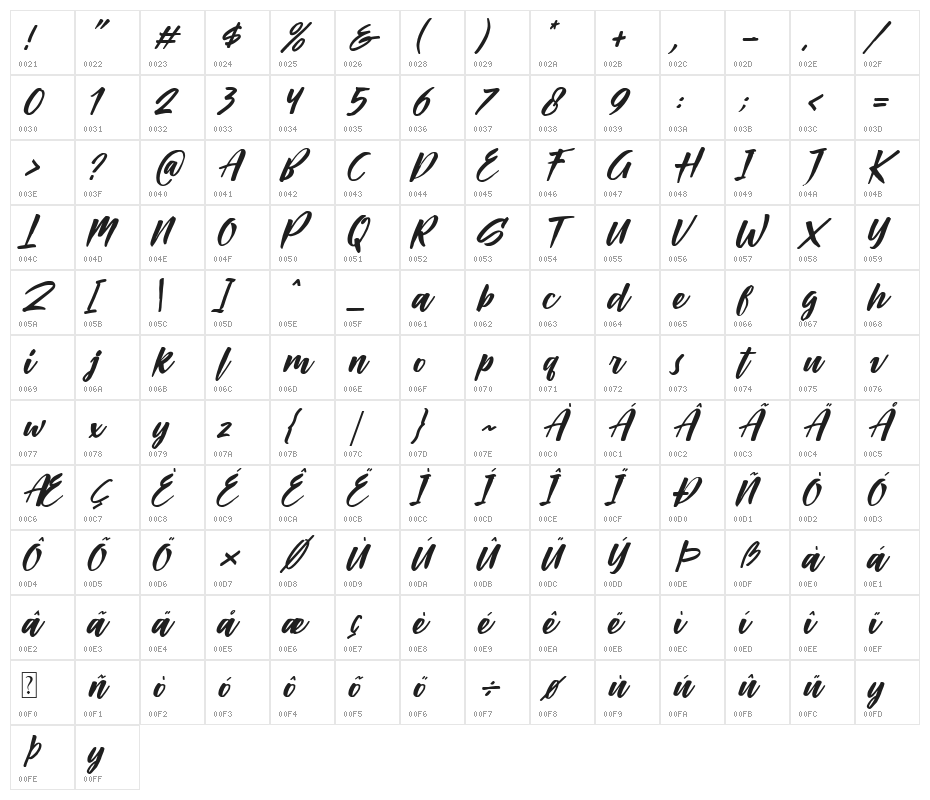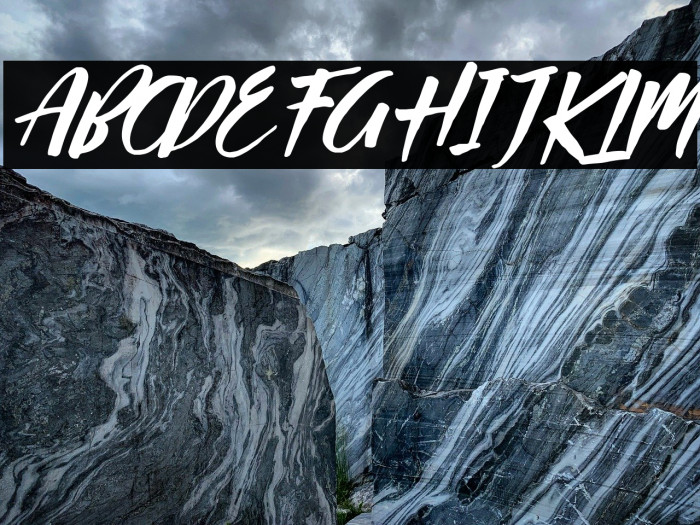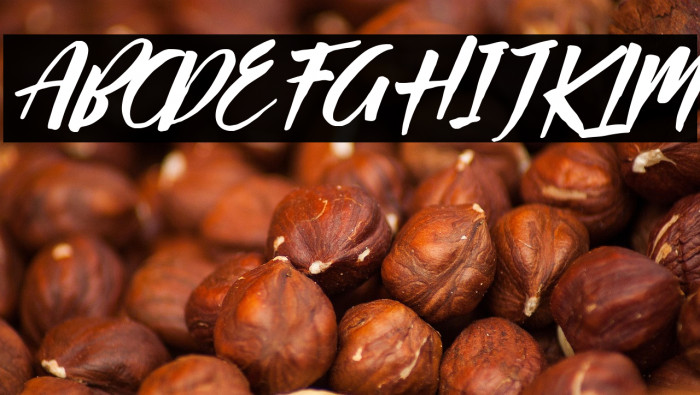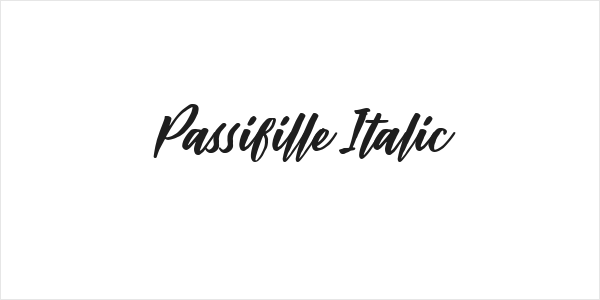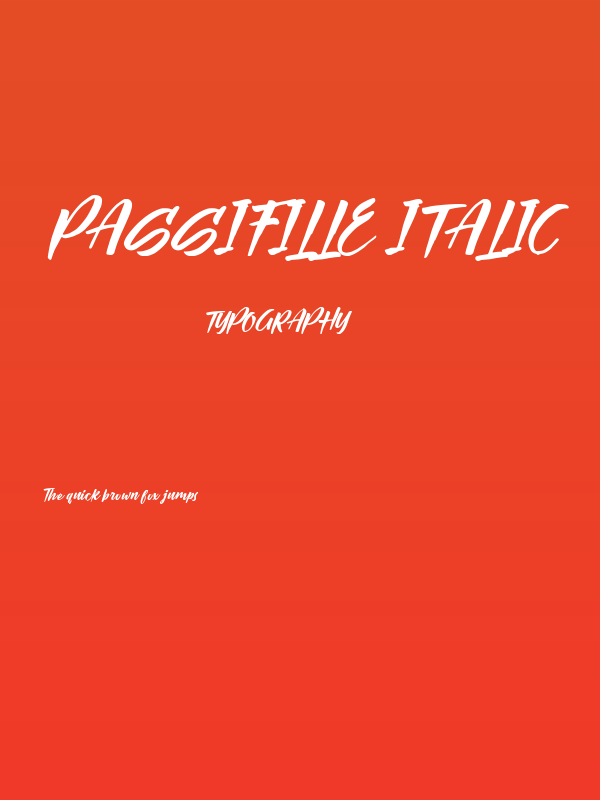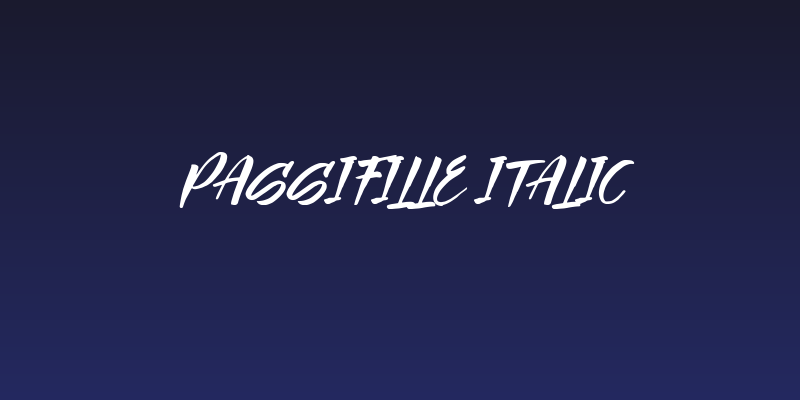
Passifille Italic Font
Passifille Italic Description
This font features a bold and expressive script style with a dynamic, handwritten appearance. The characters are fluid and connected, giving the text a sense of motion and energy. The uppercase letters are slightly larger and more prominent, while the lowercase letters maintain a consistent flow. Numbers and special characters are designed to match the overall aesthetic, ensuring a cohesive look. The strokes are thick and consistent, providing a strong visual impact. This font is ideal for projects that require a personal touch or a creative flair.
| Proposed Projects | Ideal for branding, invitations, greeting cards, and creative projects requiring a personal touch. |